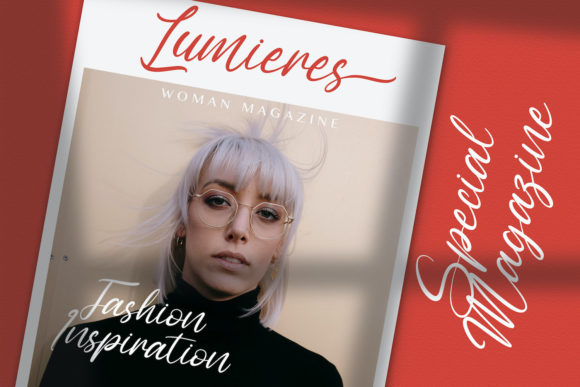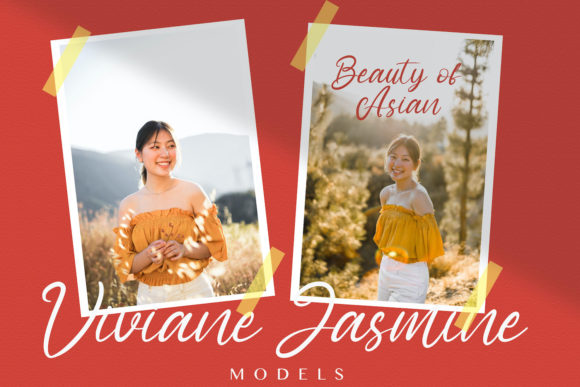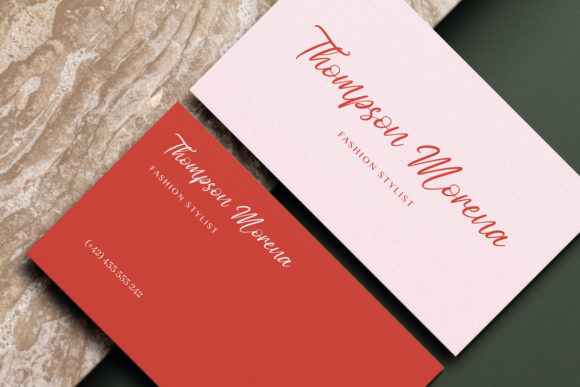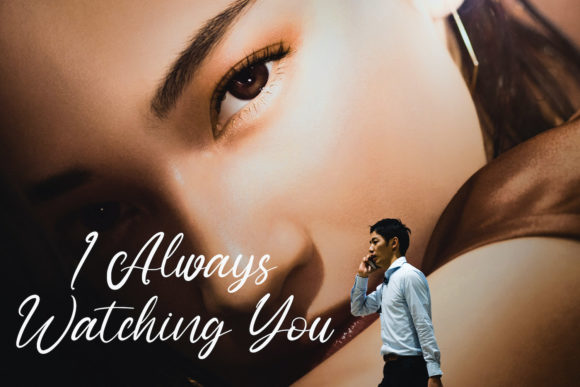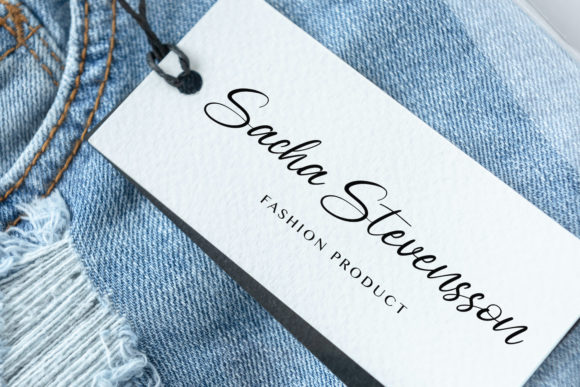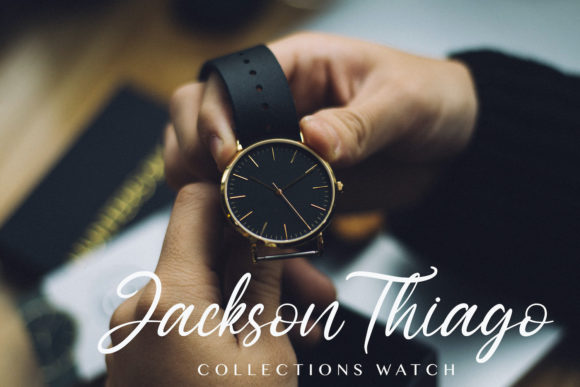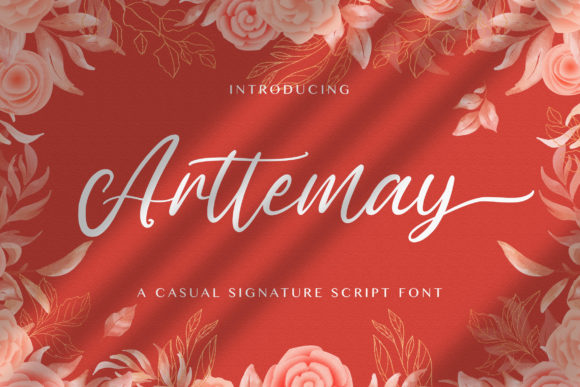
Introducing Arttemay Font: Elevate Your Designs with Elegance and Flair
Are you a designer, crafter, or creative looking for the perfect font to bring your ideas to life? Look no further than Arttemay, a delicate, elegant, and flowing handwritten font that is sure to captivate your audience. With its beautiful and well-balanced characters, Arttemay is the perfect addition to your design toolkit.
The Characteristics of Arttemay Font
Arttemay is a unique and versatile font that boasts a range of characteristics that make it ideal for a wide pool of designs. Its delicate and elegant strokes evoke a sense of sophistication and refinement, while its flowing curves add a touch of whimsy and playfulness. The font’s well-balanced characters ensure that it remains clear and legible, even at smaller sizes.
Why Choose Arttemay Font?
So, why choose Arttemay font for your next design project? Here are just a few reasons why this font stands out from the crowd:
- Elegance and sophistication: Arttemay’s delicate strokes and flowing curves add a touch of elegance and sophistication to any design.
- Versatility: With its well-balanced characters and clear legibility, Arttemay is suitable for a wide range of designs, from invitations and greeting cards to branding and advertising.
- Creativity unleashed: Arttemay is the perfect font to add to your most creative ideas, allowing you to bring your vision to life in a unique and captivating way.
Using Arttemay Font in Your Designs
Arttemay font is incredibly easy to use and can be incorporated into a variety of design projects. Here are a few ideas to get you started:
- Invitations and greeting cards: Add a touch of elegance and sophistication to your invitations and greeting cards with Arttemay font.
- Branding and advertising: Use Arttemay font to create eye-catching branding and advertising materials that are sure to capture your audience’s attention.
- Digital and print media: Arttemay font is perfect for use in digital and print media, including social media graphics, blog posts, and magazine articles.
Tips for Getting the Most Out of Arttemay Font
To get the most out of Arttemay font, here are a few tips to keep in mind:
- Experiment with different sizes and colors: Arttemay font looks great in a range of sizes and colors, so don’t be afraid to experiment and find the perfect combination for your design.
- Pair with other fonts: Arttemay font pairs well with a range of other fonts, so try combining it with other fonts to create a unique and eye-catching design.
- Use it sparingly: While Arttemay font is beautiful and elegant, it can be overwhelming if used too much. Use it sparingly to add a touch of sophistication and flair to your design.
In conclusion, Arttemay font is a beautiful and versatile font that is perfect for designers, crafters, and creatives looking to add a touch of elegance and sophistication to their designs. With its delicate strokes, flowing curves, and well-balanced characters, Arttemay is sure to bring your ideas to life in a unique and captivating way. So why wait? Add Arttemay font to your design toolkit today and start creating stunning designs that will leave a lasting impression.